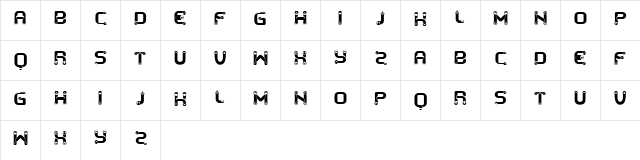
Peureux Book Regular
Design Context for Peureux Book
Peureux Book is a composed and adaptable typeface that performs quietly and consistently across a wide range of design contexts.
Pro Tip: Use Peureux Book in both headline and body roles to test its range before committing to a single application.